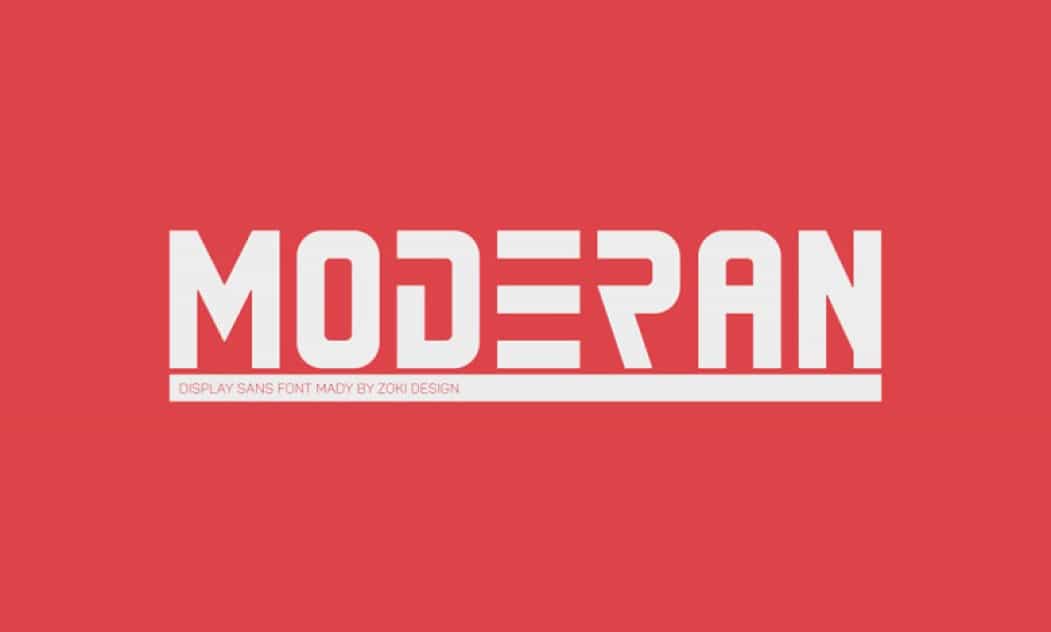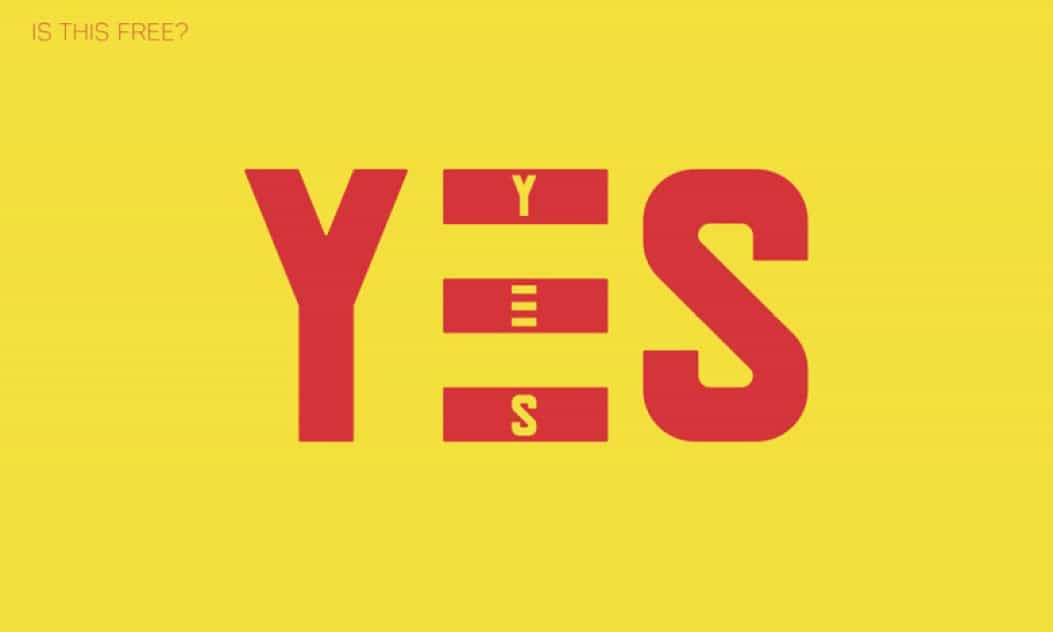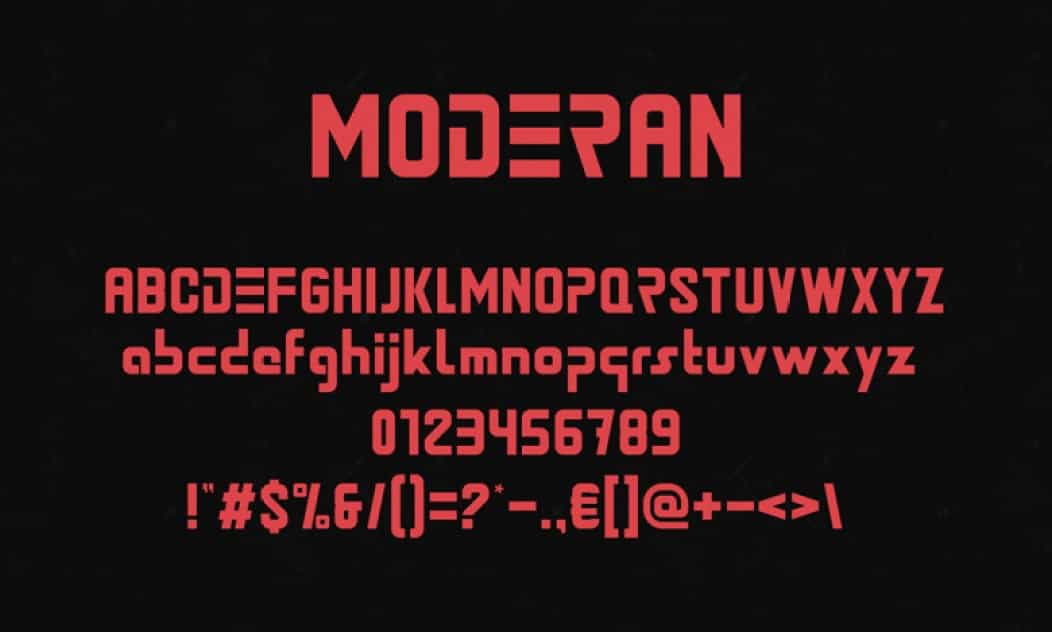
Moderan is an elegant font to use for branding or logo designs, created by font designer Zoki Design and known for its minimal beauty, elegance, and sophistication. Normal, yet unusual sharp angles create beautiful connections with oval curves all derived from one source – known as the Golden Ratio’s percentage. Century Gothic and Helvetica may have played some small part in creating these aesthetics in certain aspects.